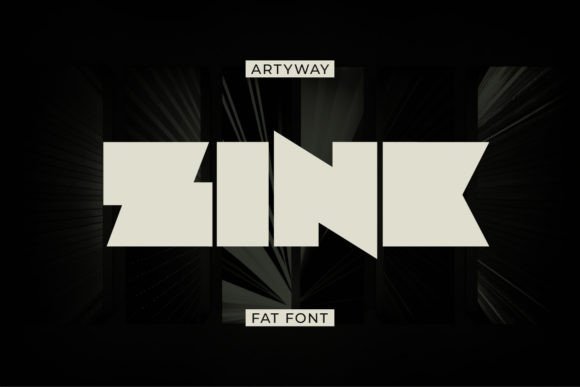
Introducing Zink Font, the bold and captivating display font that commands attention! Designed by the renowned artyway, Zink is not just a font; it's a statement. Its thick, robust letters are crafted to stand out, making it the perfect choice for logos, headlines, and titles that demand impact.
With Zink Font, you'll create designs that exude strength, confidence, and unwavering presence. The font's unique, eye-catching design ensures that your words won't just be read, they'll be felt. Whether used in print or digital media, Zink Font has the power to transform your designs into unforgettable masterpieces.
But Zink Font is more than just a visually striking font; it's a versatile performer that adapts to a wide range of design challenges. Its bold, solid structure makes it highly legible, even at small sizes, while its clean and crisp lines give it a modern, contemporary feel. Whether you're creating posters, flyers, social media graphics, or website headers, Zink Font has the versatility to deliver exceptional results.